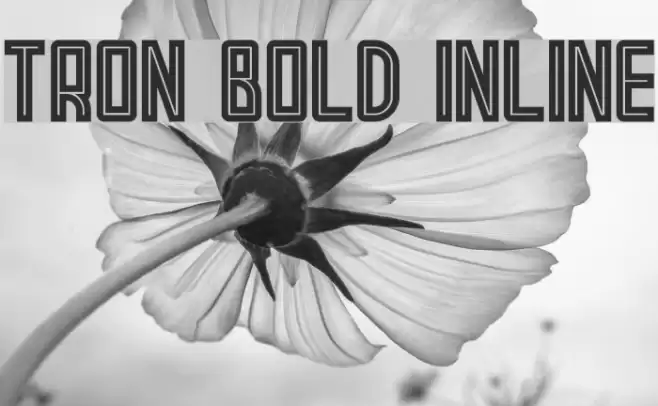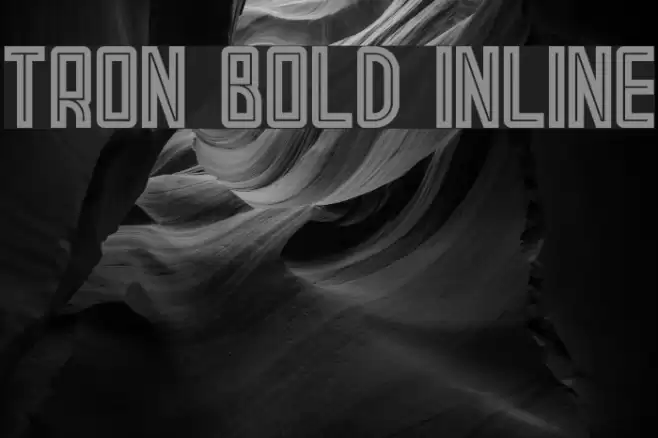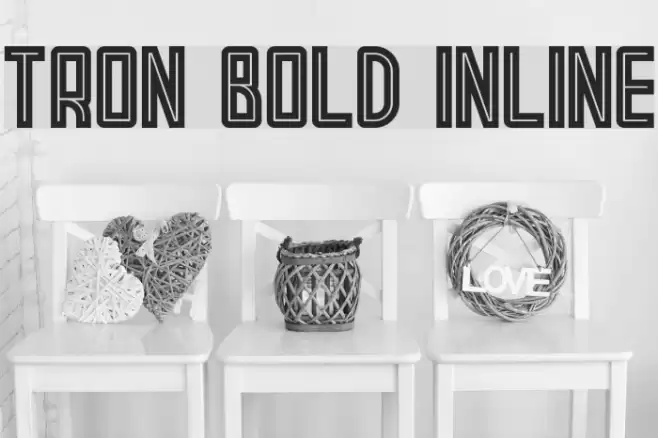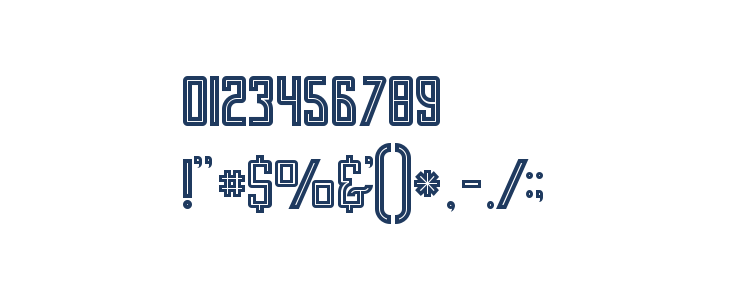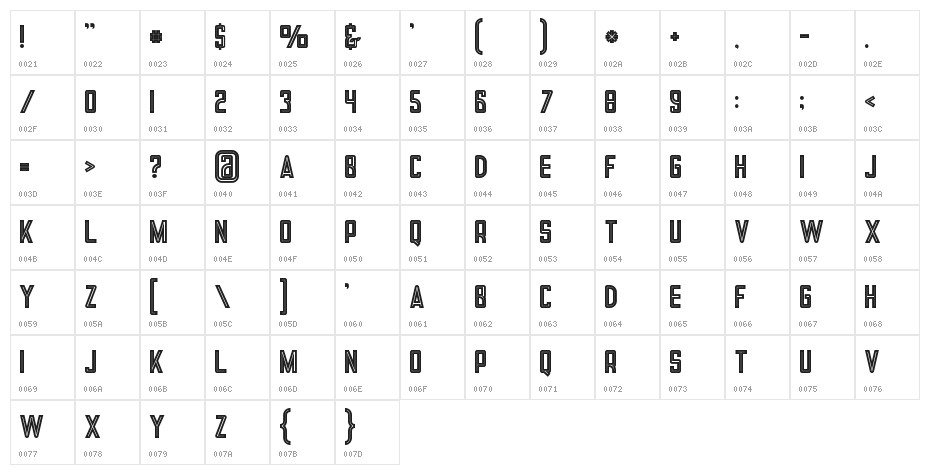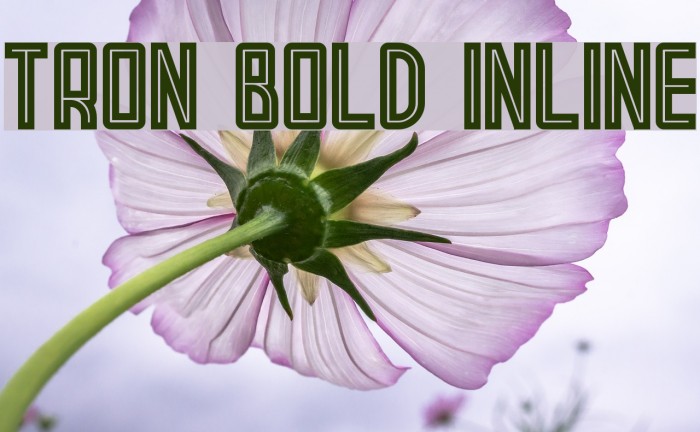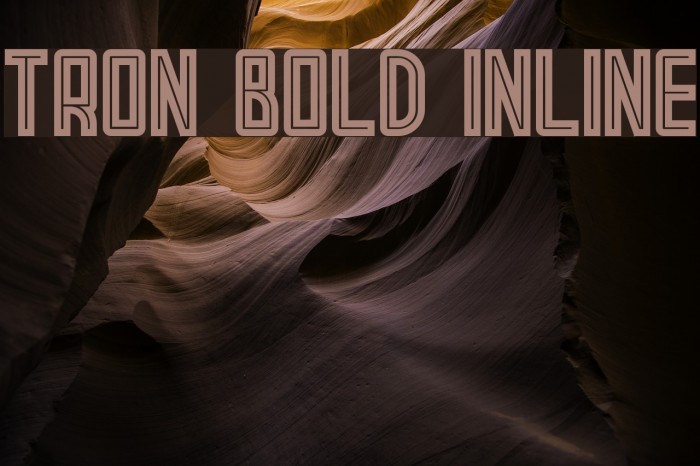
Tron Bold Inline Font
Tron Bold Inline Description
This font features a bold, futuristic design with an inline style that creates a striking visual impact. The characters are geometric and angular, with a consistent thickness throughout each letterform. The inline detail adds a sense of depth and dimension, making it ideal for projects that require a modern and tech-inspired aesthetic. The uppercase letters are particularly prominent, while the numerals and special characters maintain the same bold, structured appearance. This font is perfect for creating eye-catching headlines, logos, and branding materials that need to stand out with a contemporary and innovative look.
A bold, futuristic inline font with geometric and angular letterforms from Uncategorized fonts.
- Proposed Projects: Ideal for tech-themed branding, futuristic posters, video game titles, and sci-fi book covers.